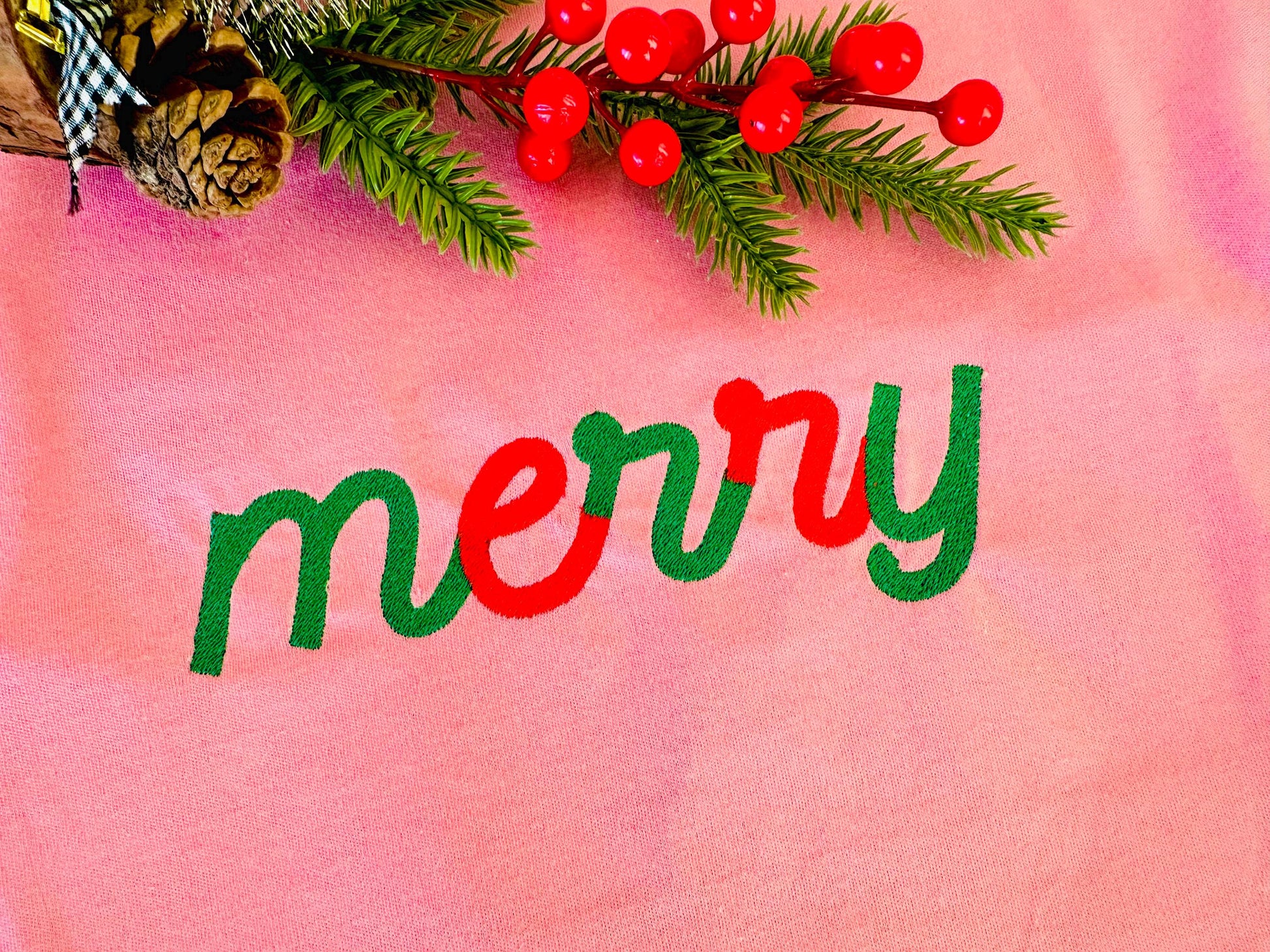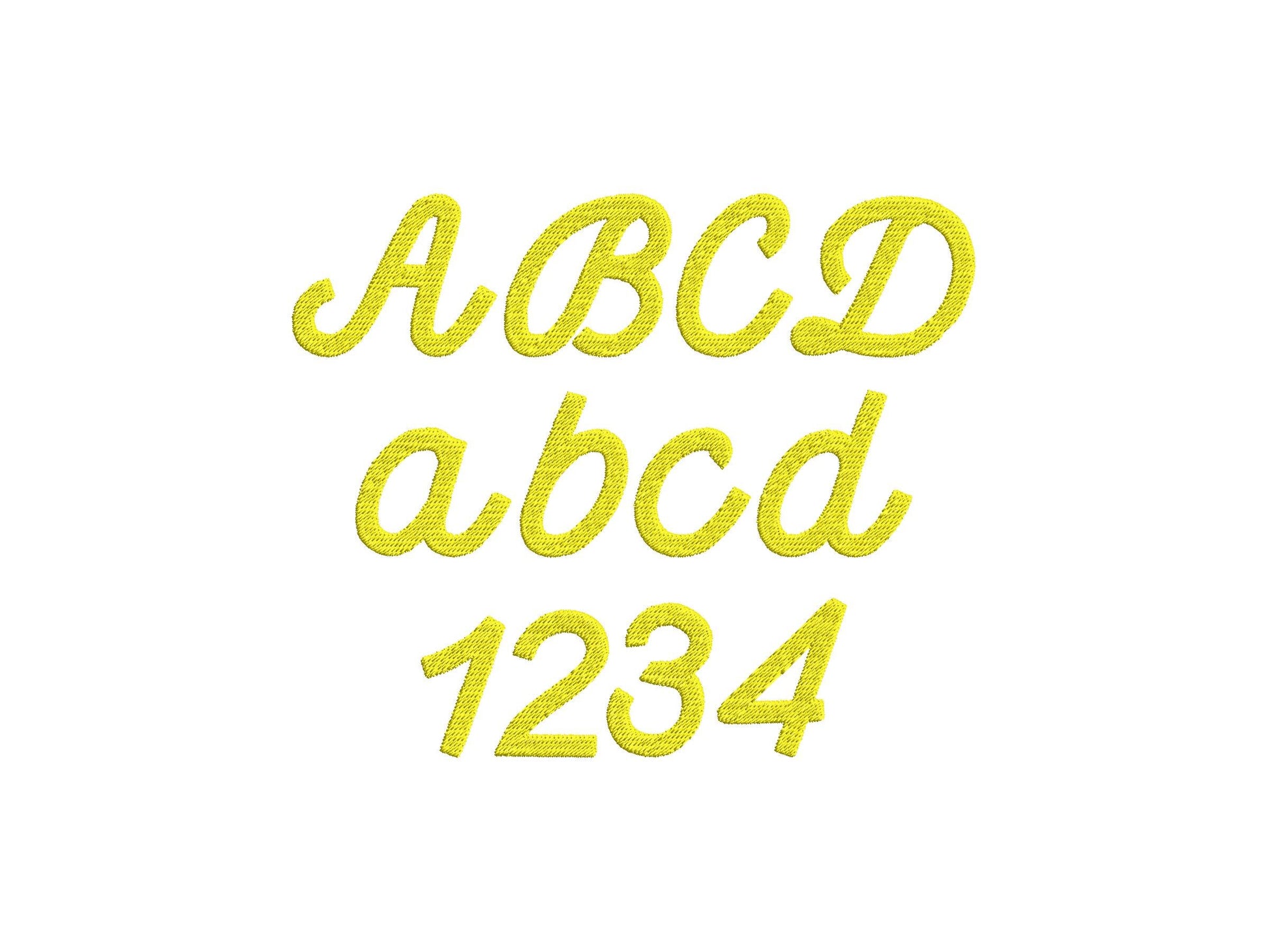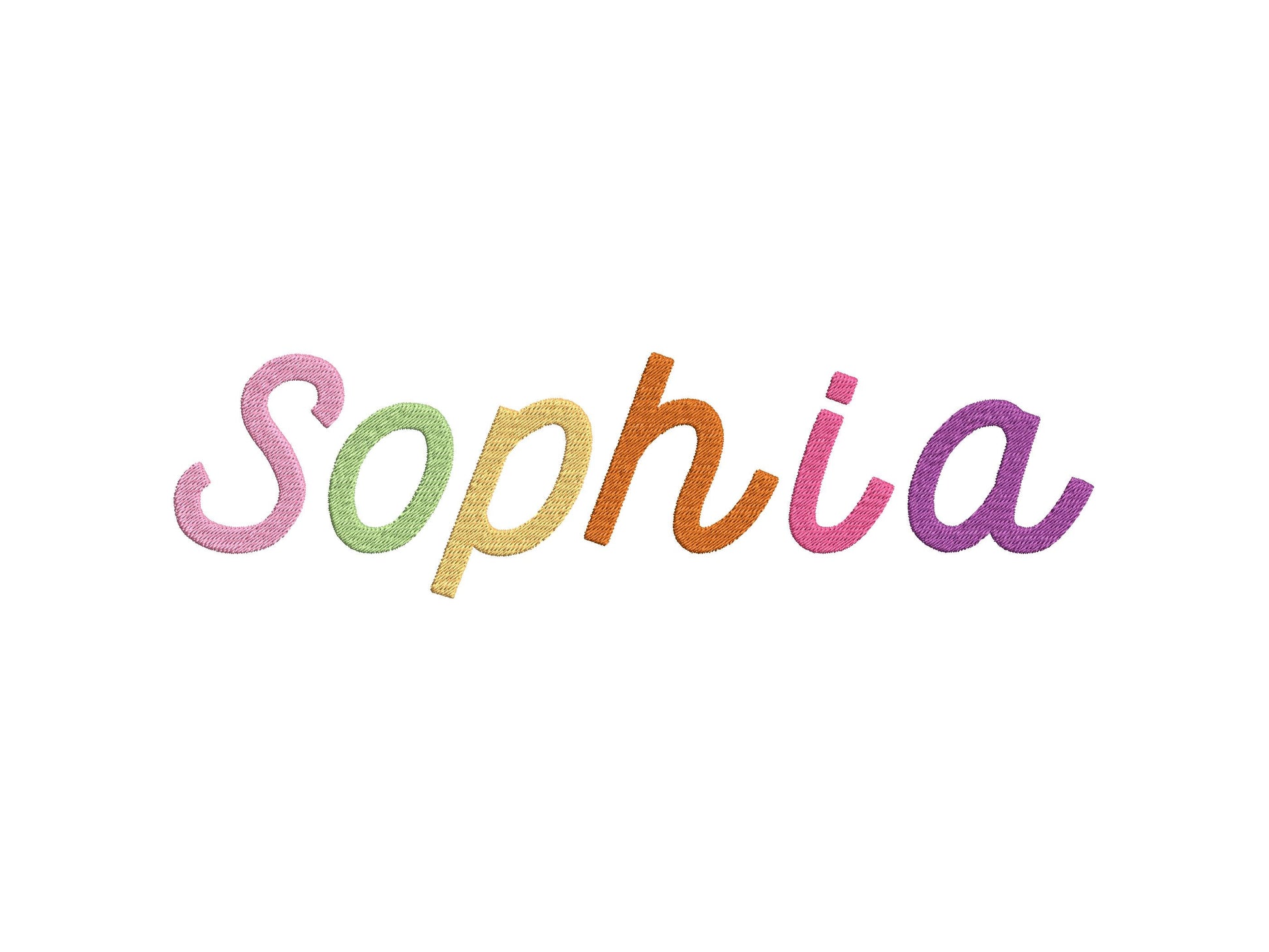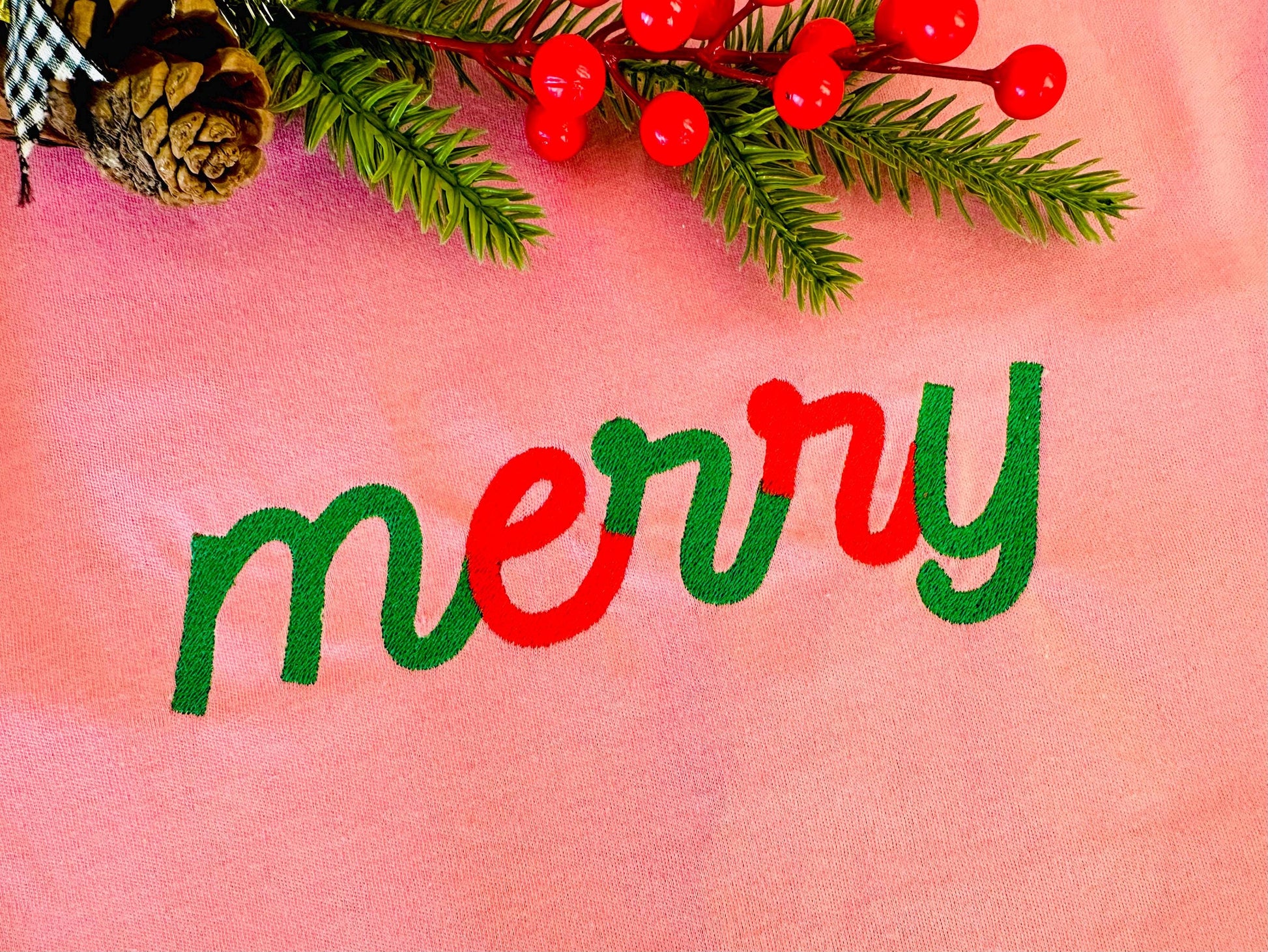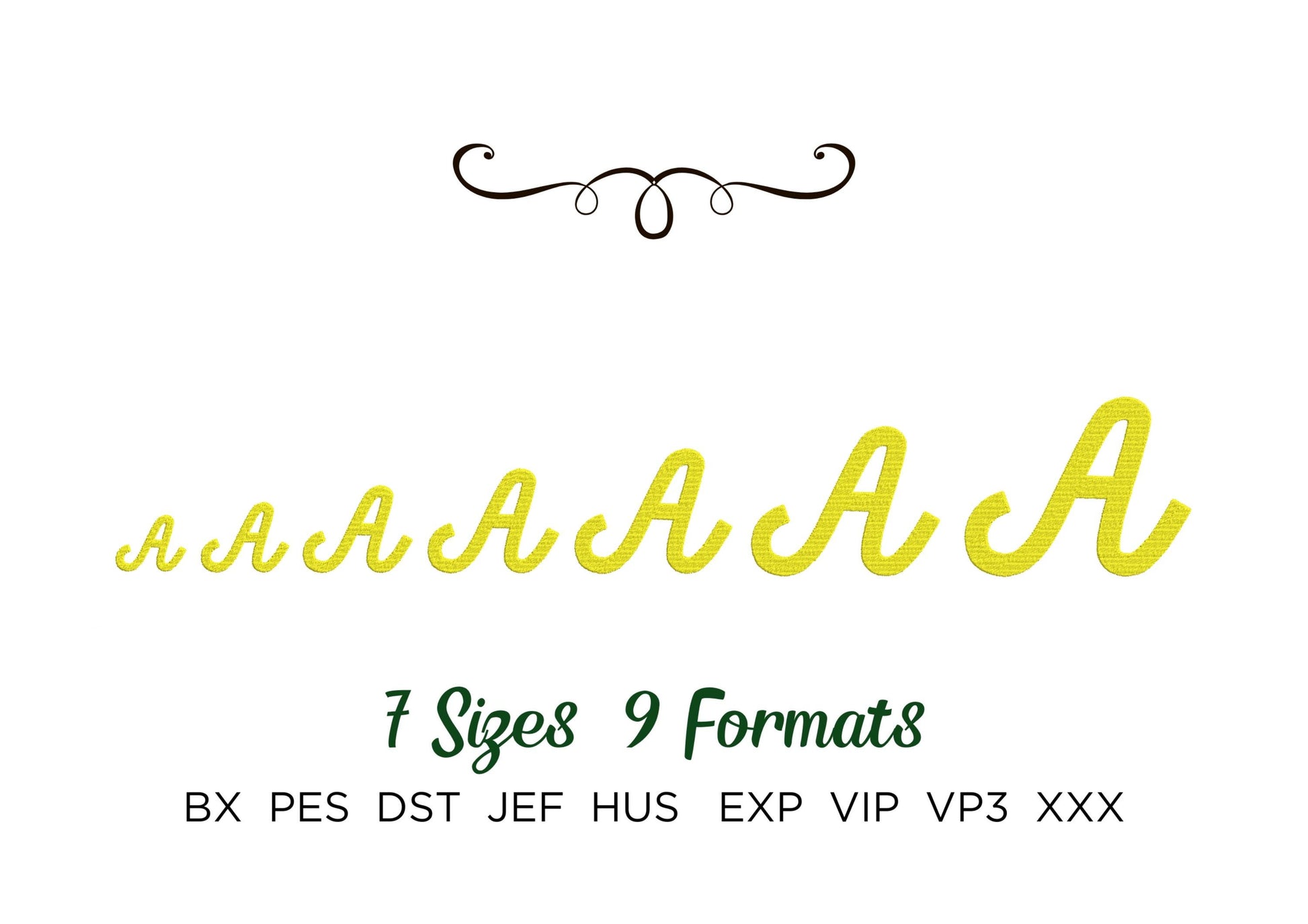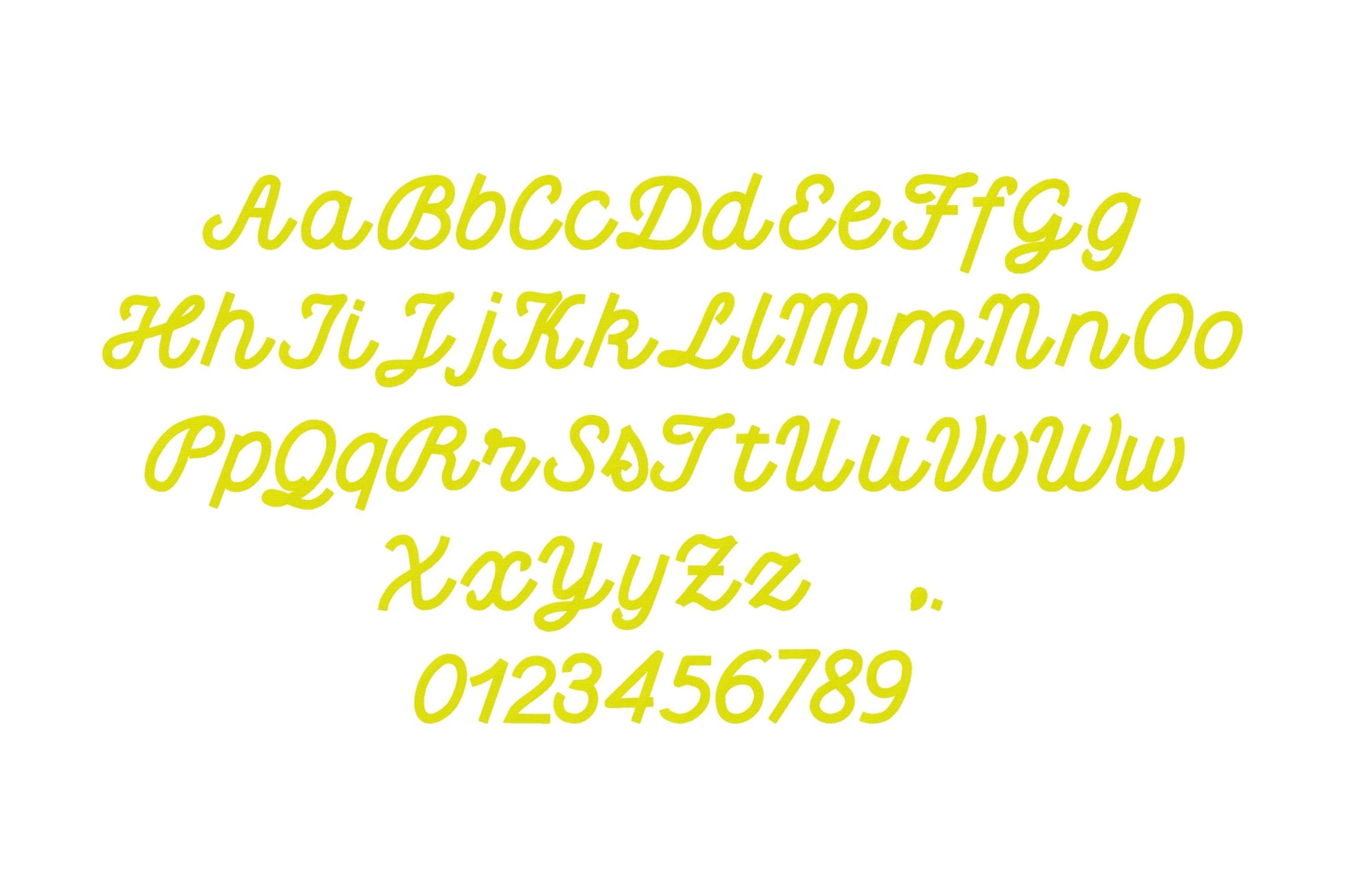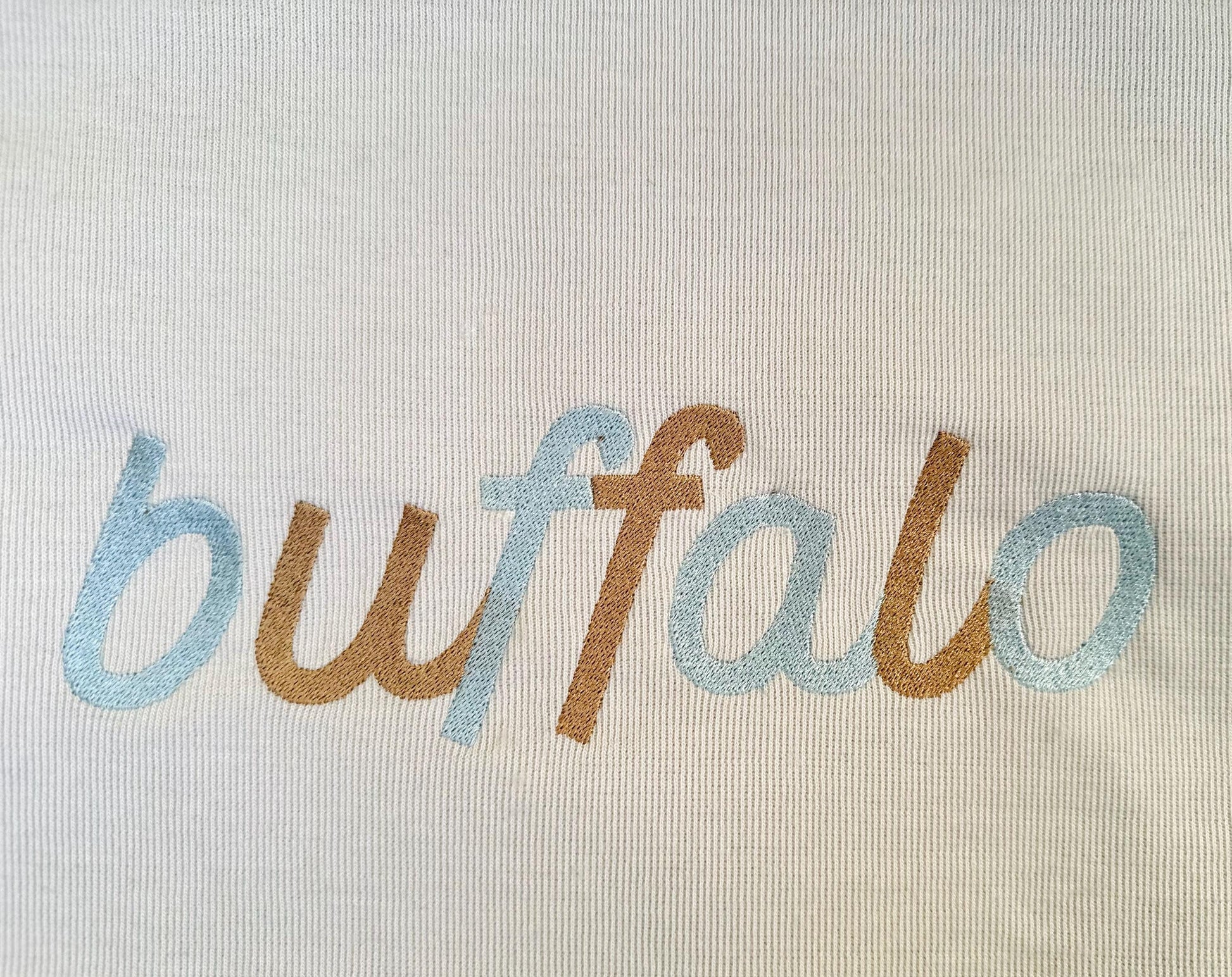
Fill Stitch Cursive Script Font
Or click to open the linkA cursive script font in fill stitch for kids' names, monograms and sayings.
Uppercase and lowercase letters, numbers 0 to 9, comma and period, in seven sizes: 1.3, 1.7, 2, 2.5, 3, 3.5 and 4.3 inches.
- Fill stitch cursive script font
- Uppercase and lowercase letters, numbers 0-9, comma, period
- 7 sizes, 1.3 to 4.3 in